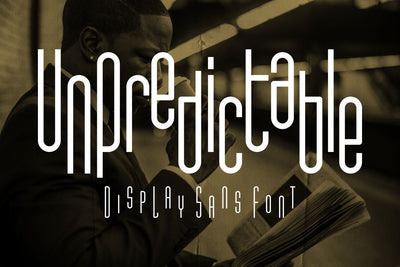
Unpredictable - Display Sans Font
Introducing Unpredictable - Display Sans Font
Unpredictable is a display sans font with variations of different heights and baseline position.
In this font there are several heights and baselines that you can combine. For height (normal, low, and high), for the baseline (normal, above and below).
This tyepeface is unique and very suitable for logos, Tshirt, apparel, quote, handwritten quotes, product packaging, tittle header, poster, merchandise, social media, labels, branding & greeting cards.